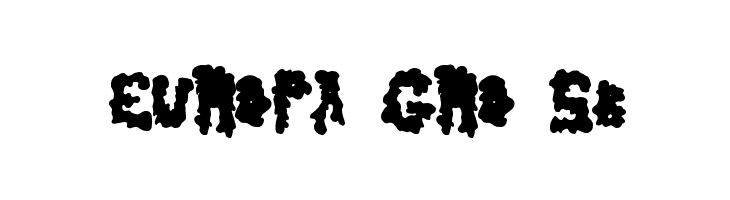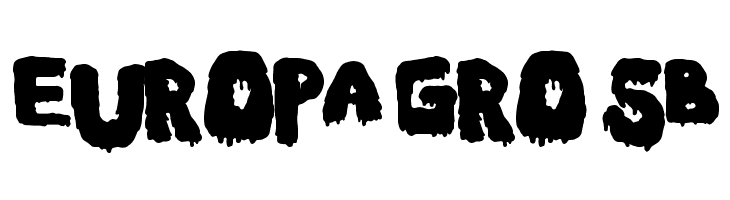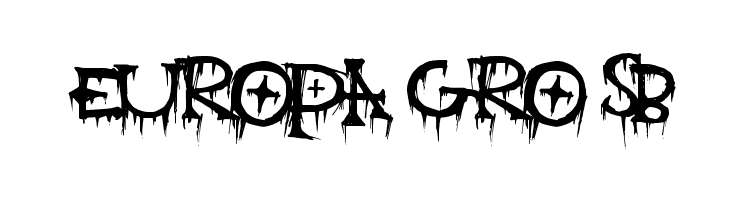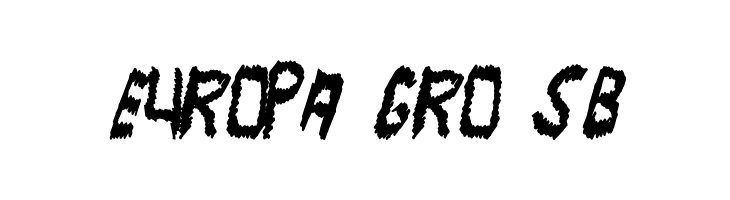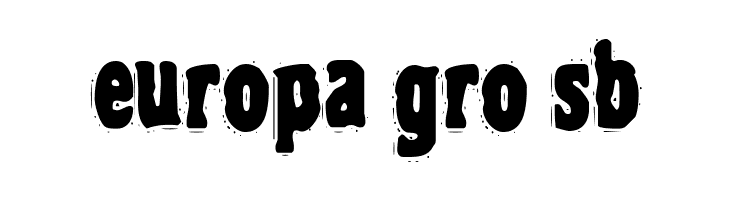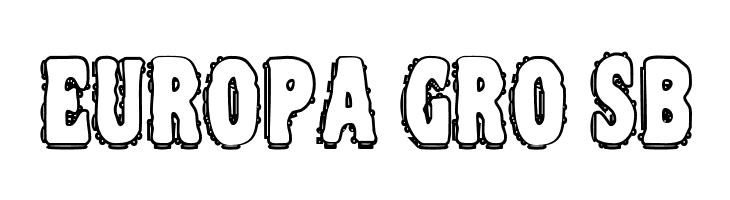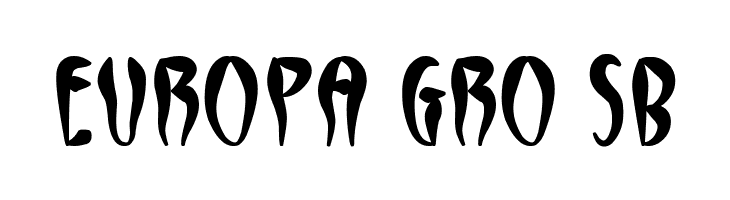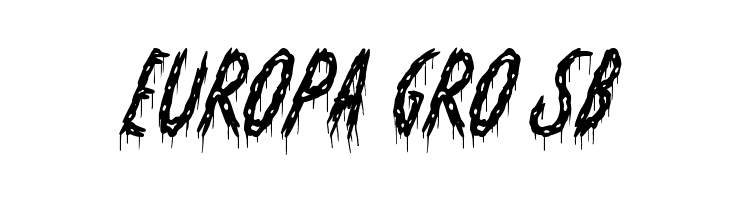
• EarlyScare
A bold, irregular font with a dripping, eerie design perfect for horror themes.
• Meltasstic
A bold, dripping font with a melting effect, perfect for creative and edgy designs.
• TreehausHorror
A jagged, horror-themed font with sharp, irregular strokes.
• CrispyBones
A spooky, bone-like font with bold, jagged edges.
• GravePain
A bold, dripping font with a haunting, gothic style.
• MajorScare
A jagged, horror-themed font with sharp, serrated edges.
• VTC NightOfTheDrippyDead Regular
A bold, dripping font with a spooky, playful style.
• VTC NightOfTheDrippyDeadOuttie
A bold, dripping font with a playful, spooky aesthetic.
• Qreepy free
• Oh No Not Again
A dramatic, dripping font with a horror-themed aesthetic.